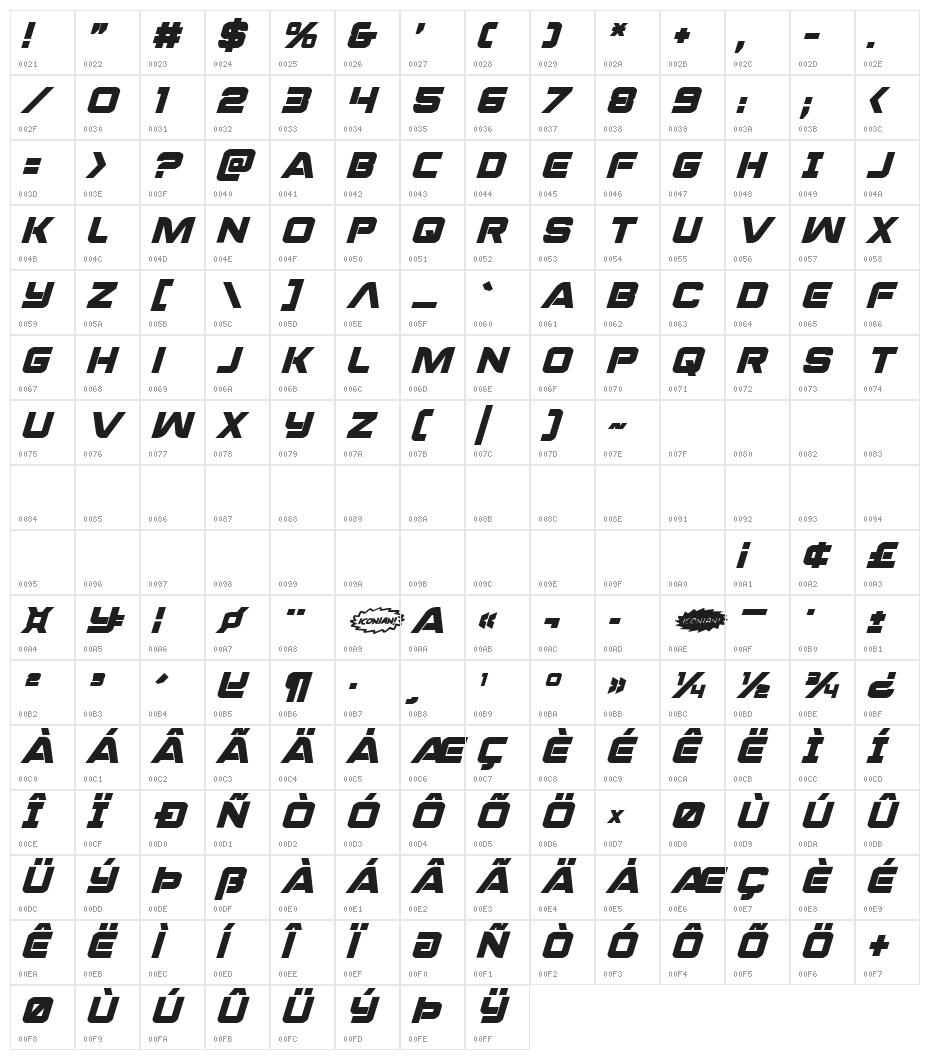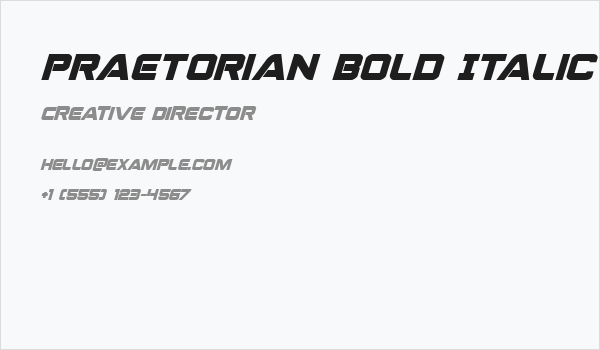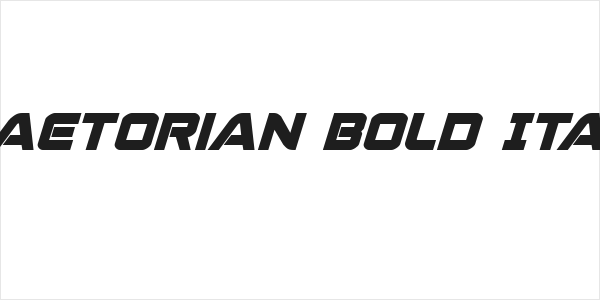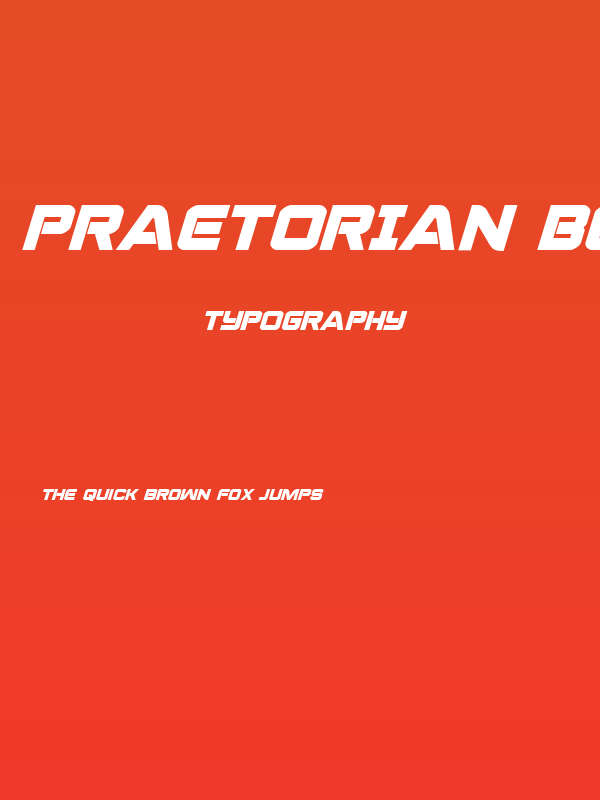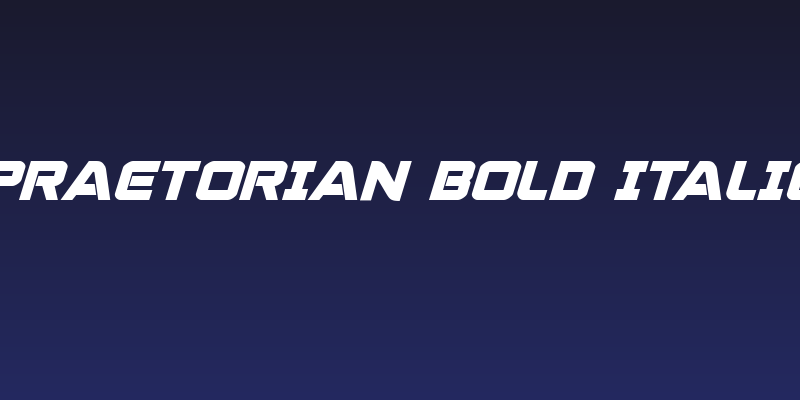
Praetorian Bold Italic Font
Praetorian Bold Italic Description
This font features a bold and italicized style with a modern and dynamic appearance. The characters are slanted, giving a sense of motion and energy. The strokes are thick and consistent, providing a strong visual impact. The design is clean and geometric, with sharp angles and a futuristic feel. The uppercase and lowercase letters maintain a uniform style, while the numbers and special characters are designed to match the overall aesthetic. This font is ideal for projects that require a bold statement and a contemporary look.
| Proposed Projects | Ideal for branding, sports team logos, posters, and headlines that require a strong, energetic presence. |